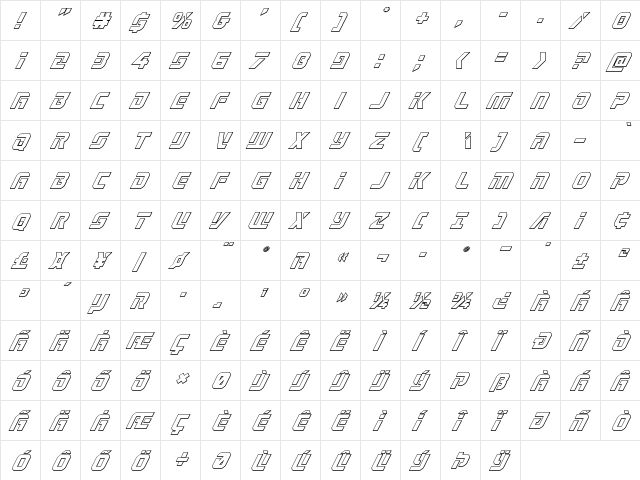
Legio Sabina Outline Italic Outline Italic
Design Context for Legio Sabina Outline Italic Typeface
Legio Sabina Outline Italic is built around its visual character rather than neutral utility — its distinctive forms are designed to make an impression at display sizes. The dynamic lean of this cut emphasises speed and emphasis in any layout.
Font Pairing: Pair with a clean neutral sans-serif for body copy to let Legio Sabina Outline Italic's character lead without overwhelming the composition.
Pro Tip: Use Legio Sabina Outline Italic exclusively at display sizes — it was designed to be seen, not read at length. Let a neutral companion handle body copy.